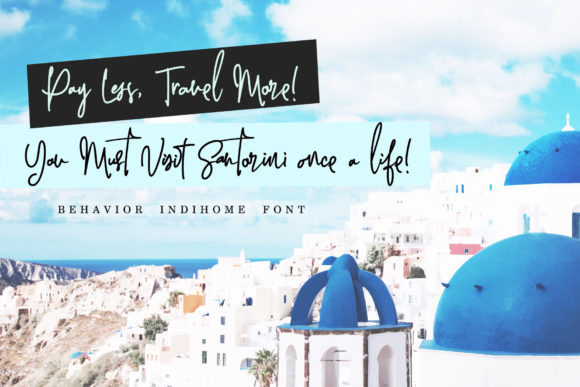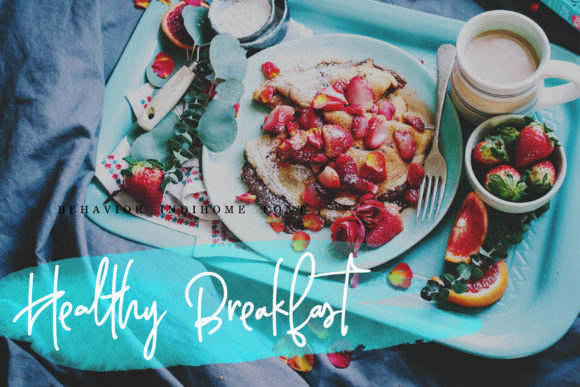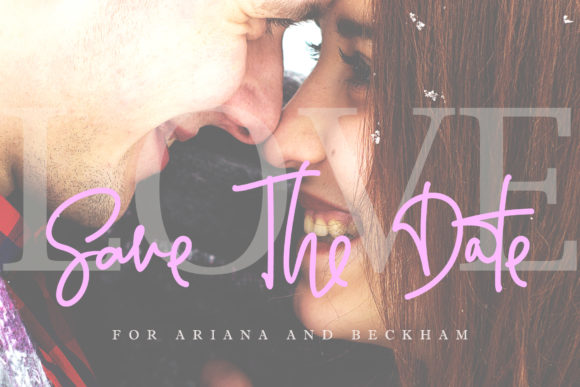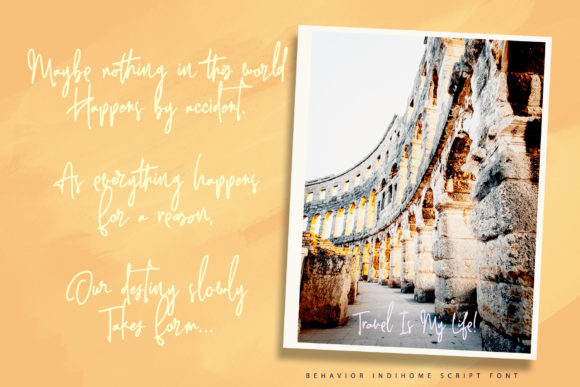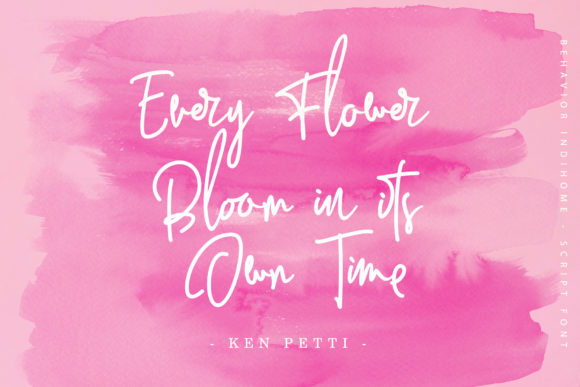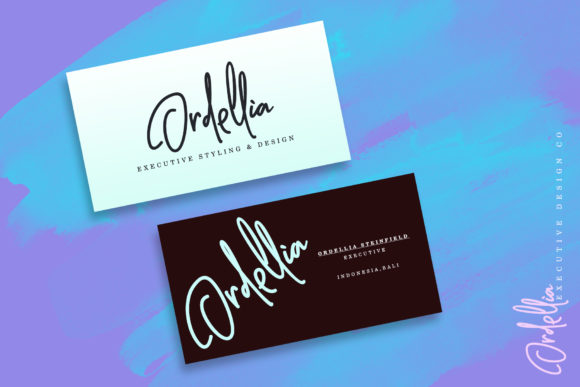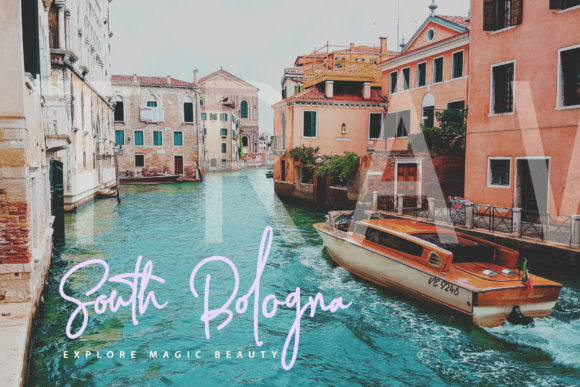
Behavior Indihome Font
The Behavior Indihome is an amazing signature font with an awesome and classy feel. It has a natural, yet elegant touch and is absolutely easy to use.
It’s a great choice for watermarks on branding, wedding stationary, photography, signatures, logo designs, album covers, business cards, quotes, and much more!